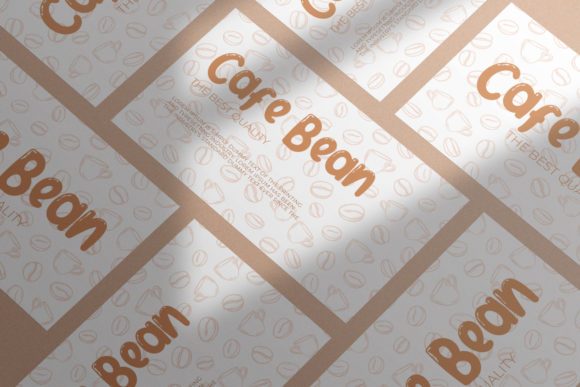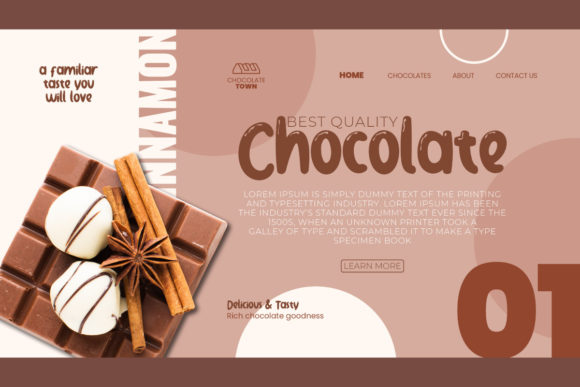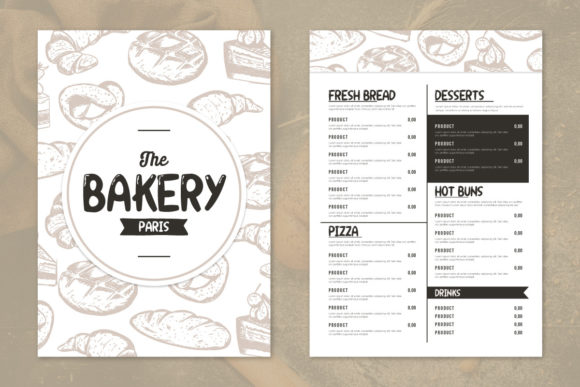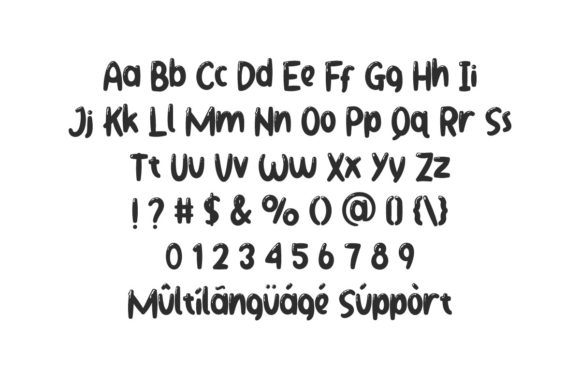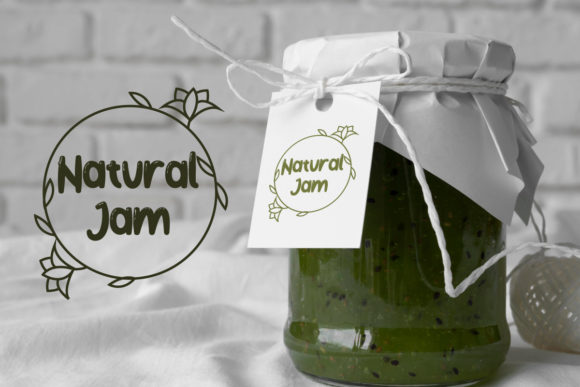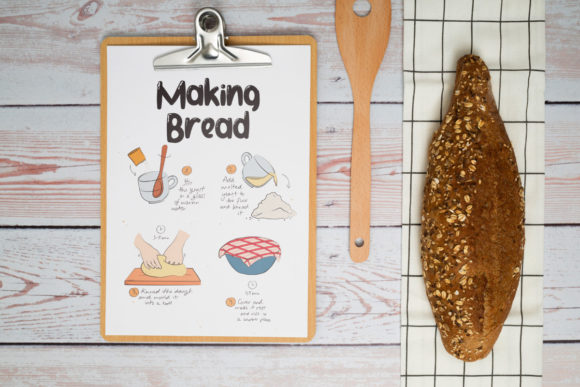
Adding a Pinch of Whimsy to Your Designs
Have you ever been brainstorming a project, and suddenly, the perfect font pops into your mind, setting the tone for the entire creation? For many designers, this is the spark that ignites their imagination and sets them on a path to creating something truly special.
One such font that has captured the hearts of designers everywhere is the Bread Coffee Font. This delightful display font is the perfect blend of cute and bubbly, adding a touch of whimsy to any project. Whether you’re creating a social media campaign, a children’s book, or a food blog, the Bread Coffee Font is sure to elevate your design to new heights.
As a valuable addition to any designer’s library, the Bread Coffee Font offers endless possibilities for creative expression and visual storytelling. Its unique charm and versatility make it a must-have for any designer looking to add a pinch of personality to their work.
Bread Coffee Font Key Features
- Unique Characteristics: Distressed, coffee-stained texture, giving it a warm and inviting feel
- Font Style: Casual, informal, and friendly, suitable for food, coffee, and lifestyle brands
Bread Coffee Font Review
I recently had the chance to work with Bread Coffee Font, and I must say it’s a unique addition to any design project. Here’s what I think works well:
- ✨ The font’s casual, handwritten feel adds a touch of warmth and personality to any text-based design.
- ✨ The Bread Coffee Font is incredibly versatile, suitable for a wide range of applications, from food and beverage branding to digital product design.
- ✨ The font’s script-style elements and varied letterforms create a sense of visual interest and depth.
- ⚠️ The font may not be suitable for projects requiring a more formal or traditional look.
- ⚠️ Some characters, particularly punctuation marks, may be harder to read due to their cursive nature.
- ⚠️ The font’s ligatures can be inconsistent in certain situations, which may affect readability.
Overall, Bread Coffee Font is a solid choice for designers seeking a unique, expressive font for their projects. While it may not be the best fit for every situation, it’s a great addition to any design toolkit.
Use the Bread Coffee Font to add a touch of whimsy and playfulness to your designs.
Combine it with bold colors and textures to create a unique visual style.
Experiment with different font sizes and styles to add emphasis and hierarchy to your text.
Bread Coffee Font is perfect for:
Coffee shop menus and branding
Food and beverage packaging
Children’s book illustrations and design
Playful and whimsical branding